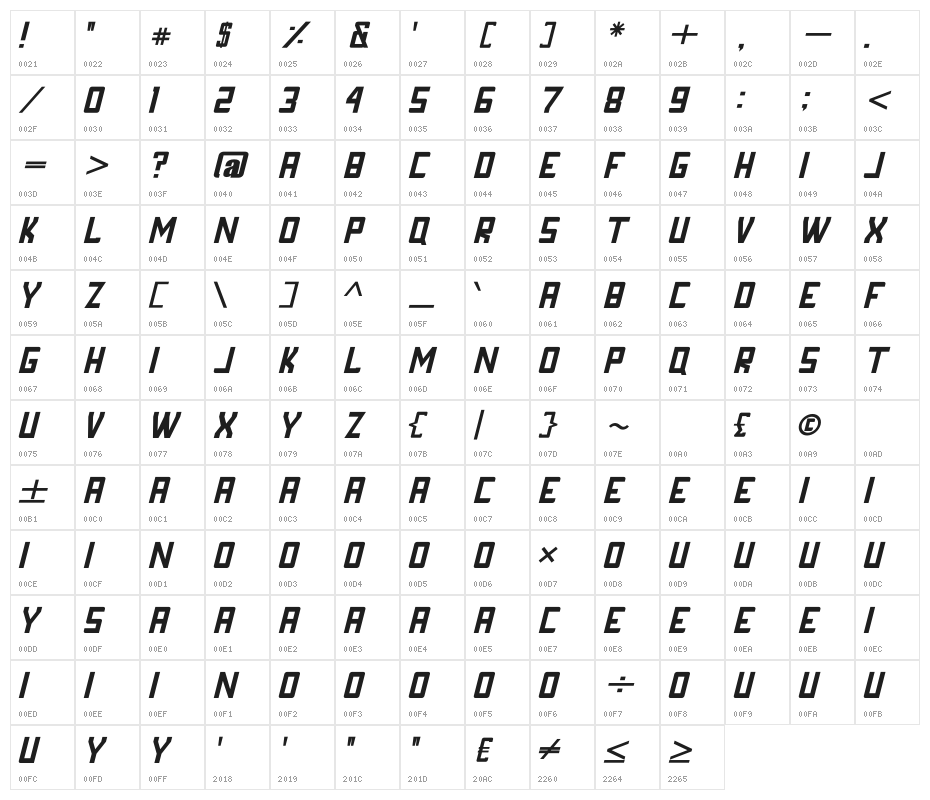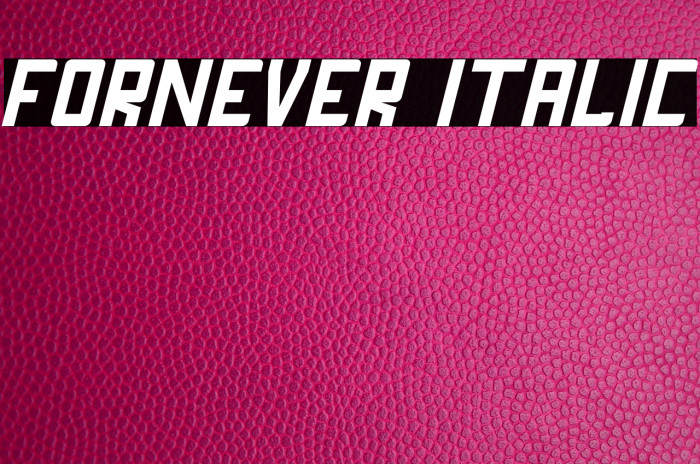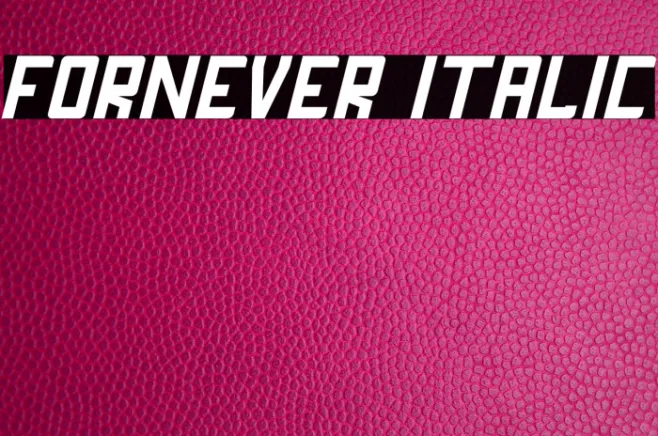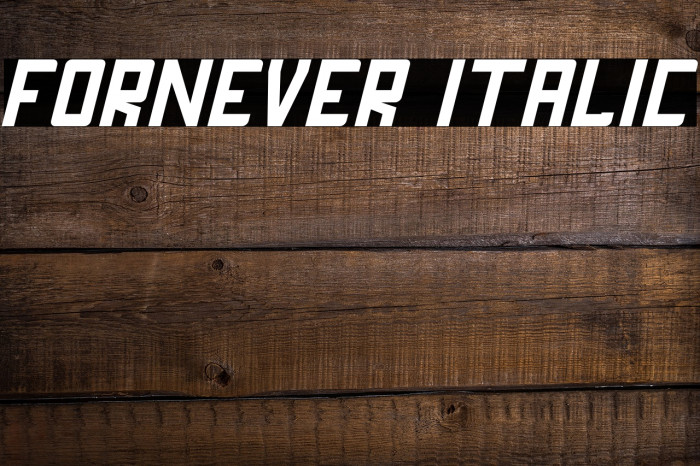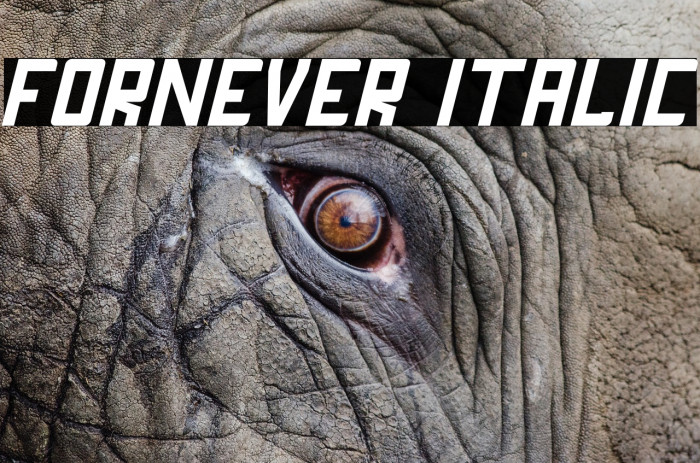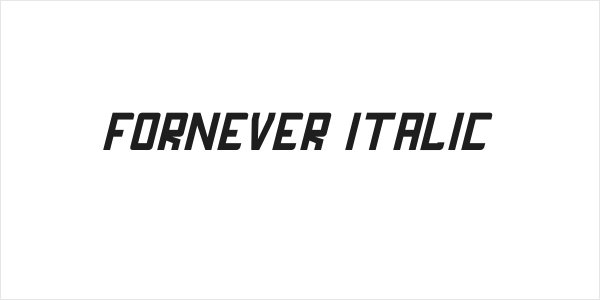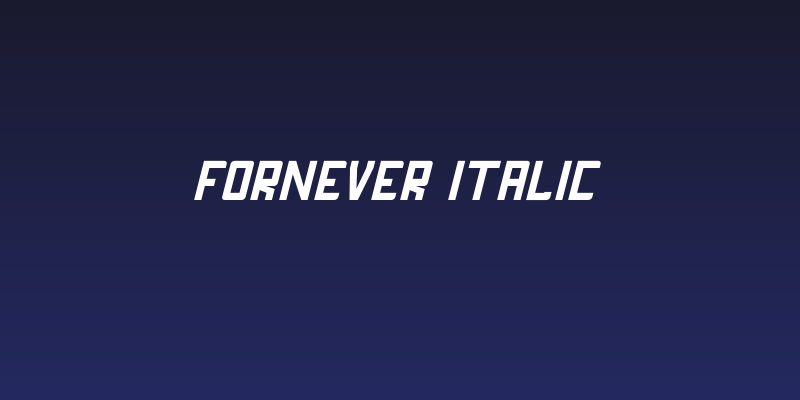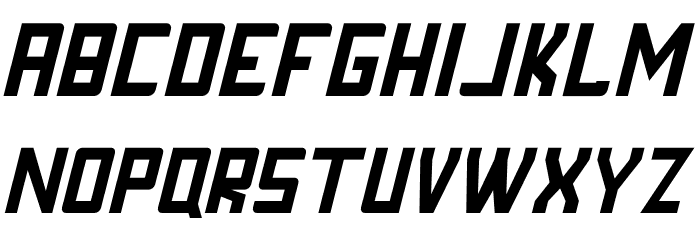
FORNEVER Italic Font
FORNEVER Italic Description
This font features a bold, italicized style with a modern and dynamic appearance. The characters are slightly slanted, giving a sense of motion and energy. The strokes are consistent in weight, providing a uniform look across all letters and numbers. The uppercase and lowercase letters maintain a cohesive design, with sharp angles and clean lines. The numerals are distinct and easily readable, complementing the overall aesthetic. Special characters are well-integrated, maintaining the font's bold and italicized characteristics.